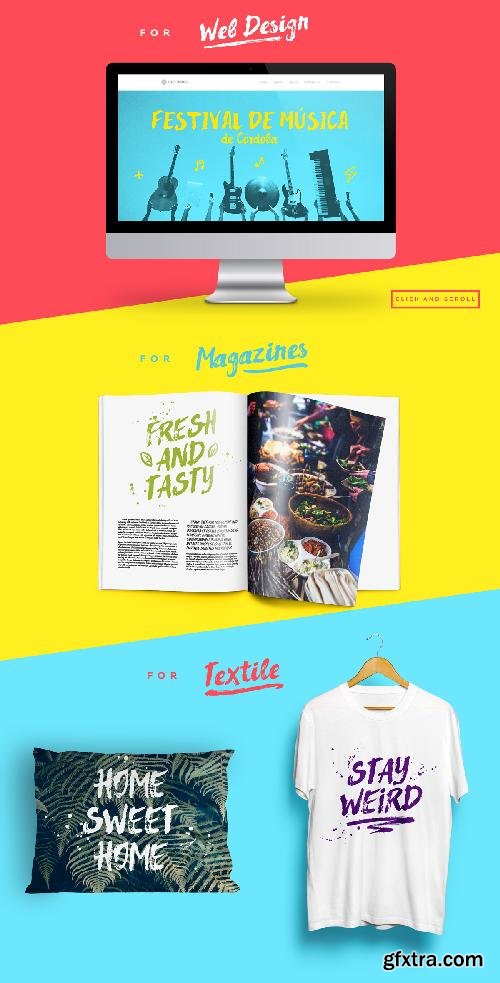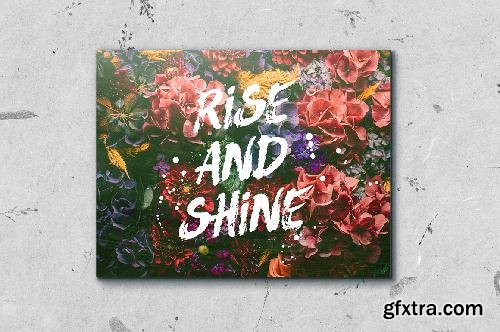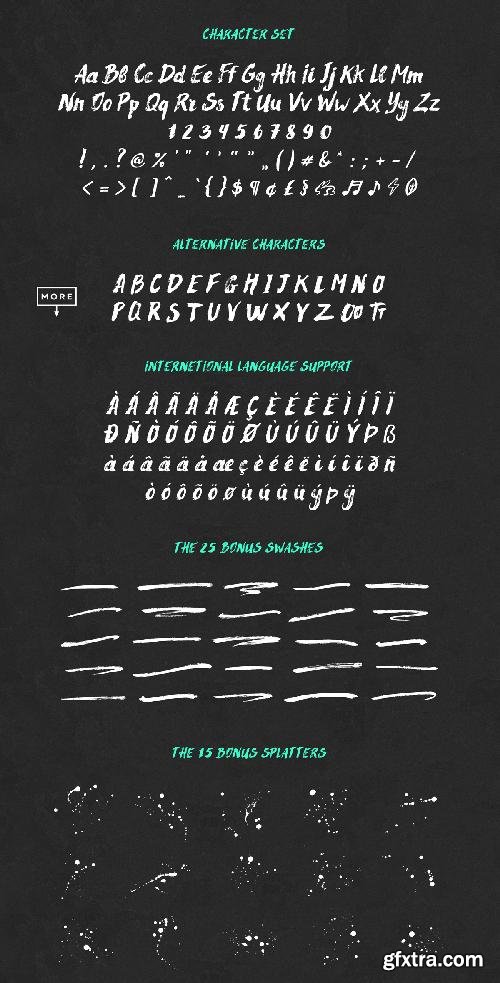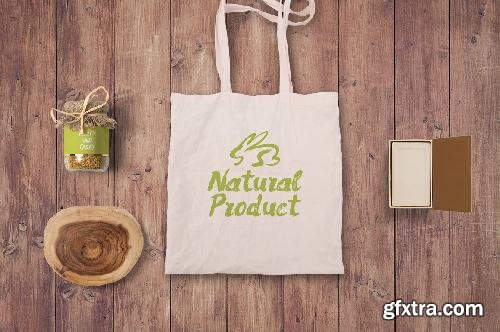
Rocket Surfing is all about fun. It is a brush script typeface made with love to give you a really nice and truly hand drawn look to any typographic project. Rocket Surfing comes with upper and lowercase characters (Regular + Italic), large set of punctuation glyphs and numerals. This font also supports international languages (please contact me if you find any missing extended latin characters and I will update the font accordingly) and the uppercase has alternate letters. Also Rocket Surfing includes a set of 25 Bonus Swashes and 15 Bonus Splatters ideal for giving your text that final touch of finesse! To add extra value to the font I've made sure that it's also works great when you use only uppercase characters. Use Rocket Surfing typeface to create an awesome posters, to make logo marks, textile designs or anything that requires that personal touch. ROCKET SURFING COMES WITH Rocket Surfing font (Regular + Italic) with upper and lowercase letters, alternate letters and extra characters, which accessible via a glyphs pannel 25 Bonus Free Swashes - available as PNG's, Ai and PSD files 15 Bonus Free Splatters - available as PNG's, Ai and PSD files TTF and OTF files are included for all fonts. Also you'll need a Glyphs Panel to use the extras. If you're have any version of Illustrator or Photoshop CC (not older versions), you'll have access to what's called a Glyphs panel. Under Window - Glyphs, you'll be able to open an area that can access all the extra characters and alternate letters with just a double click. I had so much fun making this font and I'am hoping you experience the same thing when you'll get it. If you need any help or have any questions please don't hesitate to get in contact. Made with love ? Thanks & Happy Designing! xx